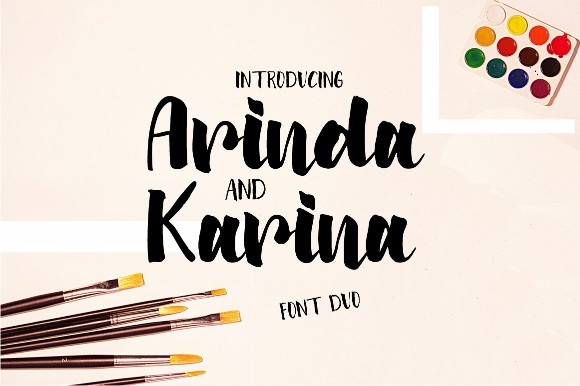
The Arinda & Karina Duo Font: A Beautiful Handmade Brush Style for Your Designs
I still remember the time I was working on a project for a client who wanted a font that was both elegant and playful. I had been searching for what felt like hours, but nothing seemed to fit the bill. That was until I stumbled upon the Arinda & Karina duo font. This beautiful font duo has a handmade brush style that immediately caught my attention, and I knew I had found the perfect fit for my project.
So, what do I love about the Arinda & Karina duo font? Here are a few things that stood out to me:
- ✨ Unique and eye-catching design: The handmade brush style of this font duo is truly one-of-a-kind. The imperfections and variations in the letters give it a personal and human touch that is hard to find in digital fonts.
- ✅ Highly versatile: The Arinda & Karina duo font can be used for a wide range of projects, from invitations and greeting cards to branding and advertising.
- ✅ Easy to read: Despite its handmade style, this font duo is surprisingly easy to read, even at smaller sizes.
- 🤔 Limited use of uppercase letters: While the font duo does include uppercase letters, they are not as stylized as the lowercase letters. This may be a consideration if you need to use all caps for your project.
- ⚠️ Some letters may require manual kerning: As with any font, you may need to adjust the kerning of certain letters to get the best results. This is especially true for letters with unusual shapes or sizes.
The Designer Inspiration Behind Arinda & Karina
The Arinda & Karina duo font was designed by a team of designers who wanted to create a font that was both beautiful and unique. The designers drew inspiration from traditional brush script styles, but with a modern and fresh twist. The result is a font duo that is both elegant and playful, perfect for a wide range of design projects.
| Author | Astageni |
| What is the Arinda & Karina duo font? | The Arinda & Karina duo font is a beautiful handmade brush style font duo that is perfect for a wide range of design projects. |